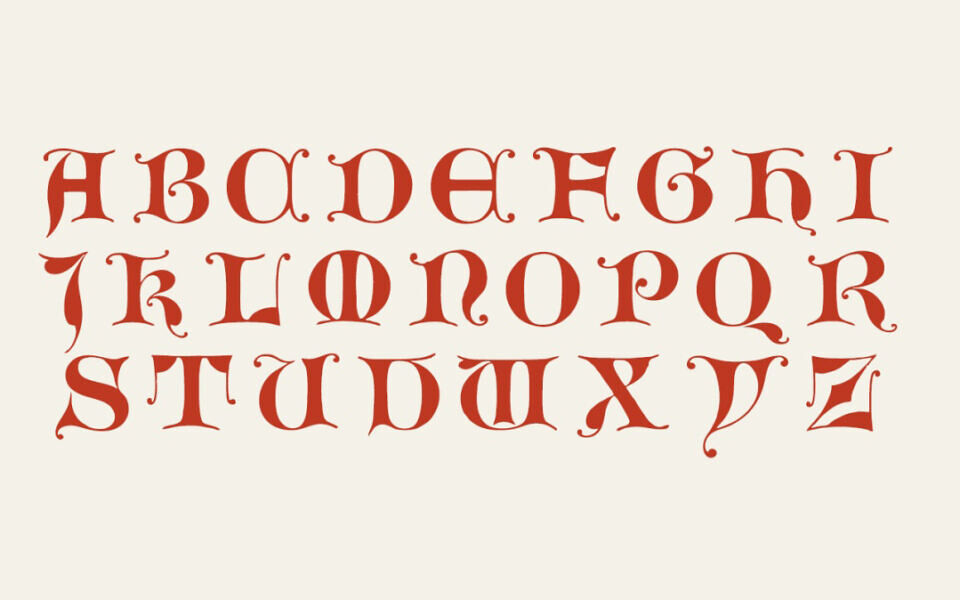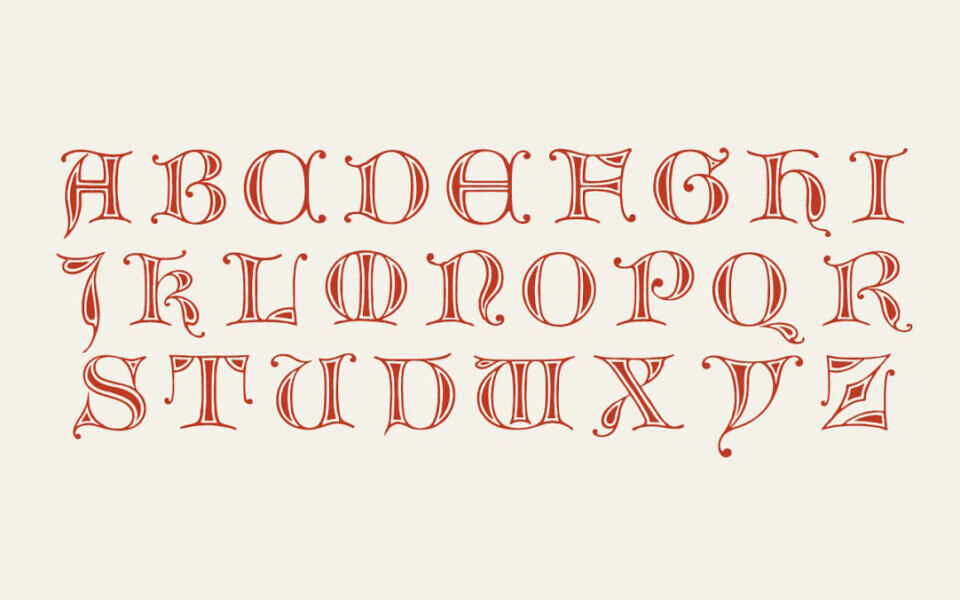
Capo Decoro Font
Capo Decoro is a beautiful display typeface released under the OFL, crafted for elegant decorative initials. Drawing inspiration from 19th‑century Gothic revival styles, it features ornate, highly legible forms perfect for titles, drop caps, and stylistic embellishments.
Its handcrafted letterforms evoke classic architectural and typographic motifs, adding historical charm and sophistication to designs. Ideal for editorial layouts, invitations, branding, and signage, Capo Decoro lends a timeless, ornamental flourish that enhances visual impact with a touch of vintage elegance.